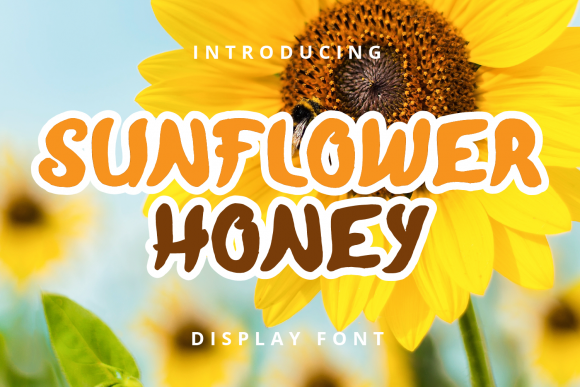
Immerse yourself in the enchanting realm of Sunflower Honey Font, a whimsical and captivating display font that will ignite your imagination. Crafted with playful strokes and a touch of quirky charm, this font is the perfect choice for injecting a burst of joy and personality into your creative endeavors.
Whether you're crafting invitations for a special occasion, designing eye-catching social media graphics, or adding a touch of magic to your website, Sunflower Honey Font will elevate your designs to new heights. Its versatility knows no bounds, making it the perfect companion for a wide range of projects.
With its playful and magical essence, Sunflower Honey Font has the power to transform your words into captivating visual masterpieces. Imagine your designs blooming with vibrancy and character, leaving a lasting impression that will resonate with your audience.
So, why settle for ordinary fonts when you can sprinkle a touch of extraordinary into your creations? Embrace the whimsy and enchantment of Sunflower Honey Font today, and let your imagination soar. It's the perfect font for adding a touch of sunshine to your designs, making them stand out from the crowd and creating a truly unforgettable experience.